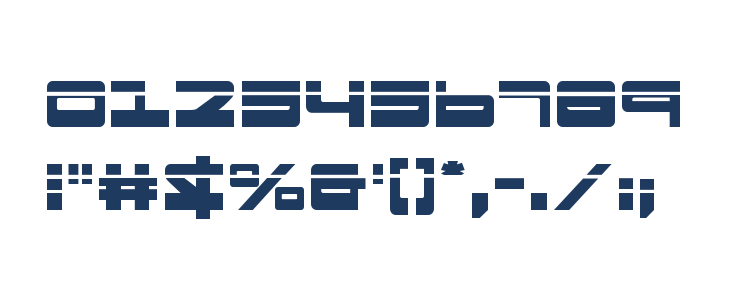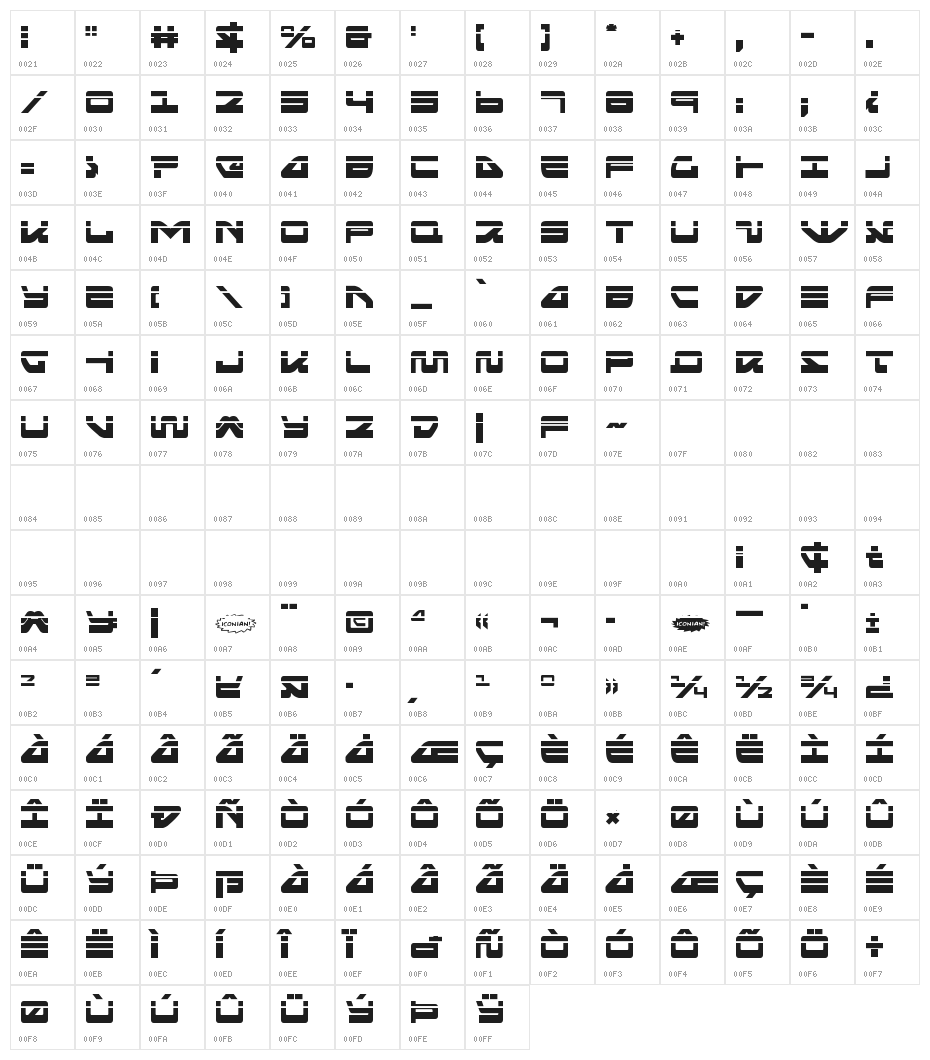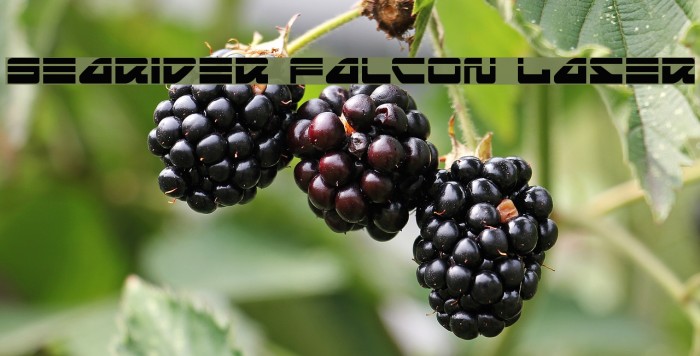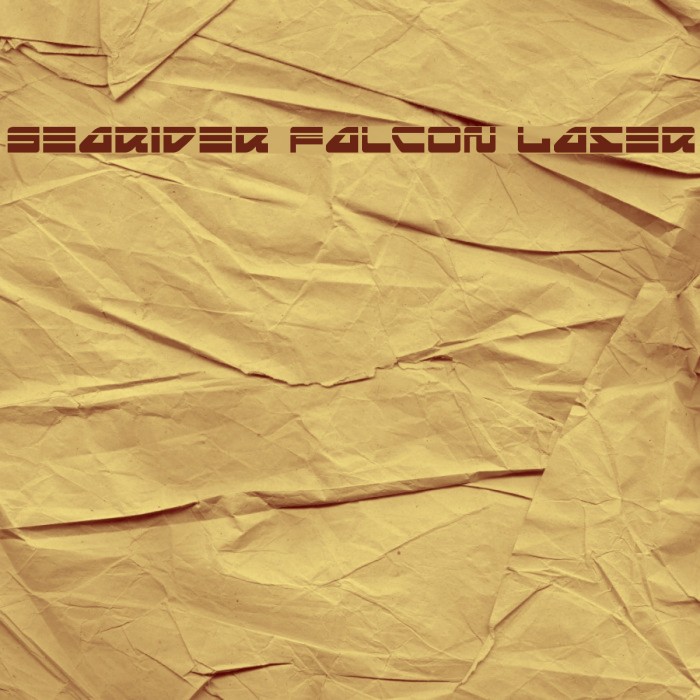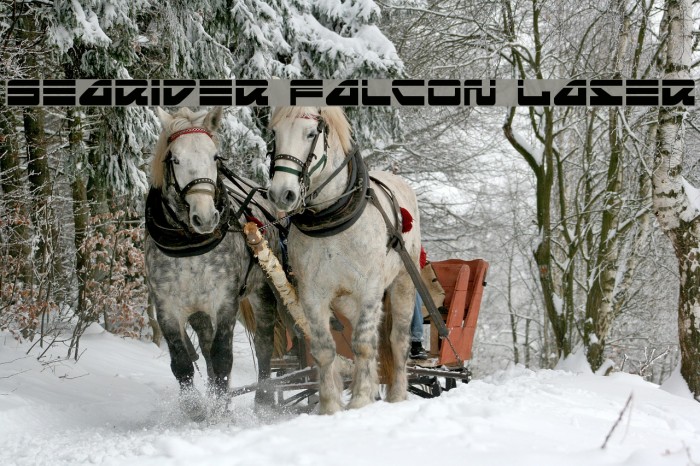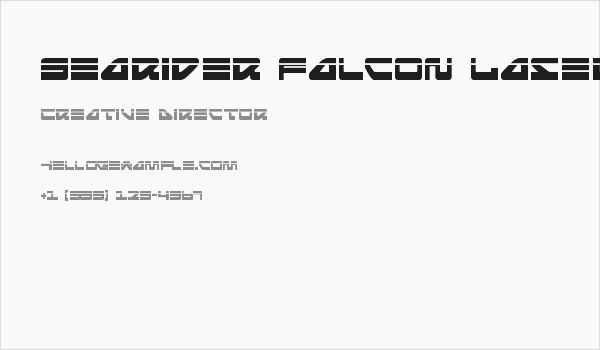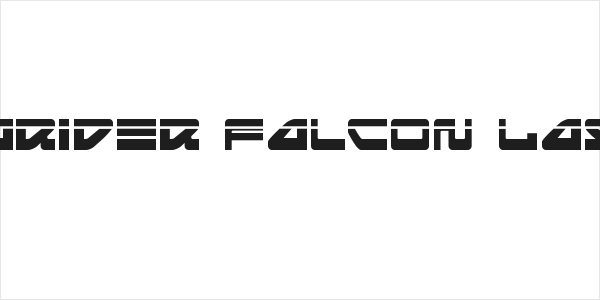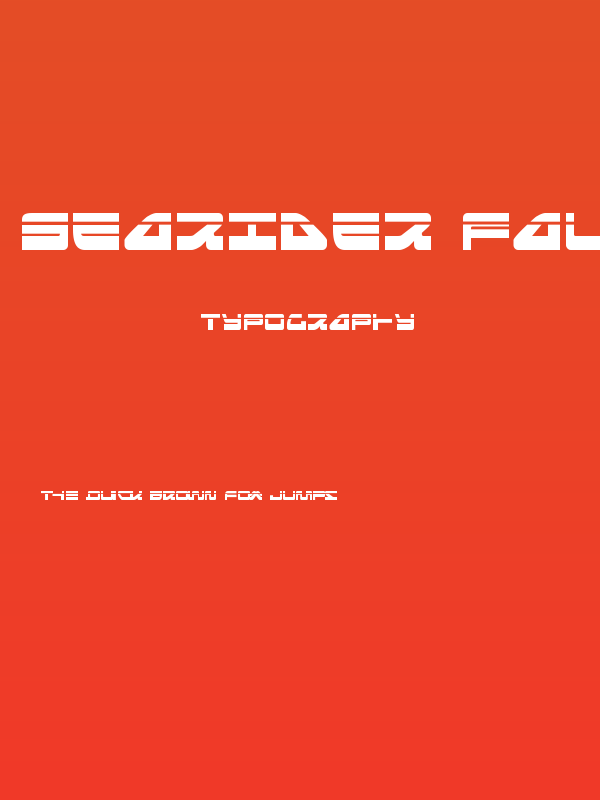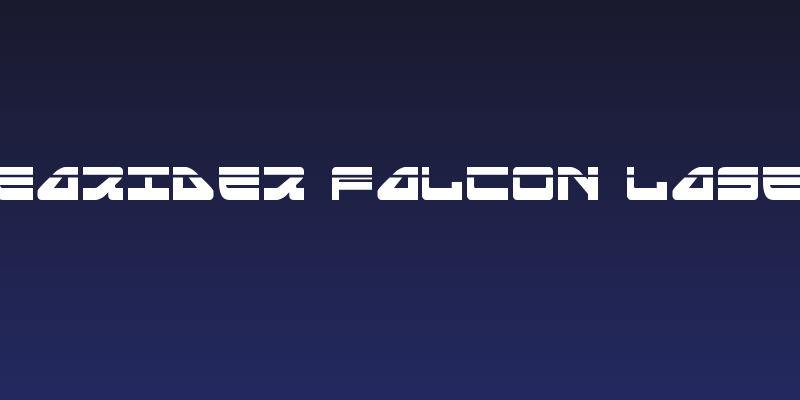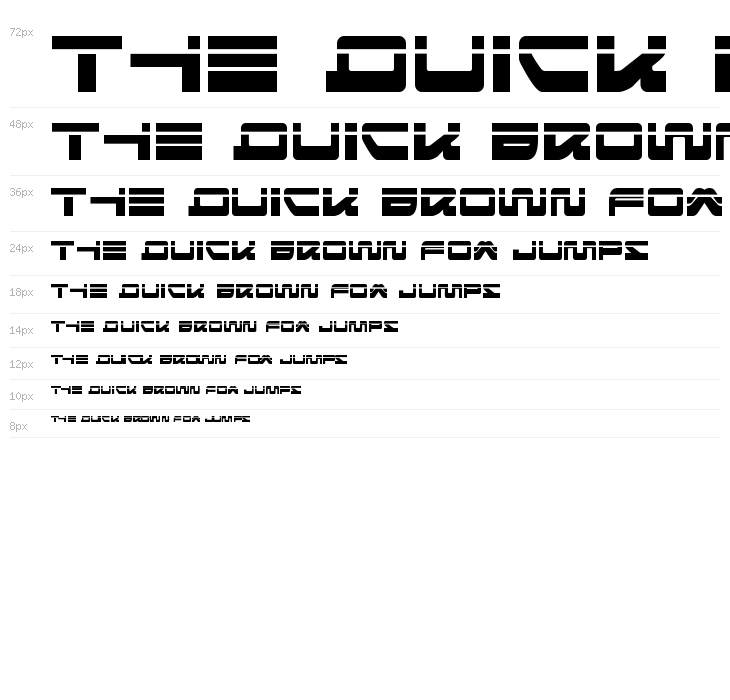
Searider Falcon Laser Font
Searider Falcon Laser Description
This font features a futuristic and angular design, characterized by bold geometric shapes and sharp edges. The letters are constructed with a combination of solid and cut-out sections, creating a dynamic and high-tech appearance. The uppercase and lowercase letters maintain a consistent style, with a strong emphasis on horizontal and vertical lines. The numerals and special characters follow the same design principles, ensuring uniformity across all glyphs. This font's unique style makes it stand out, ideal for projects that require a modern and edgy look.